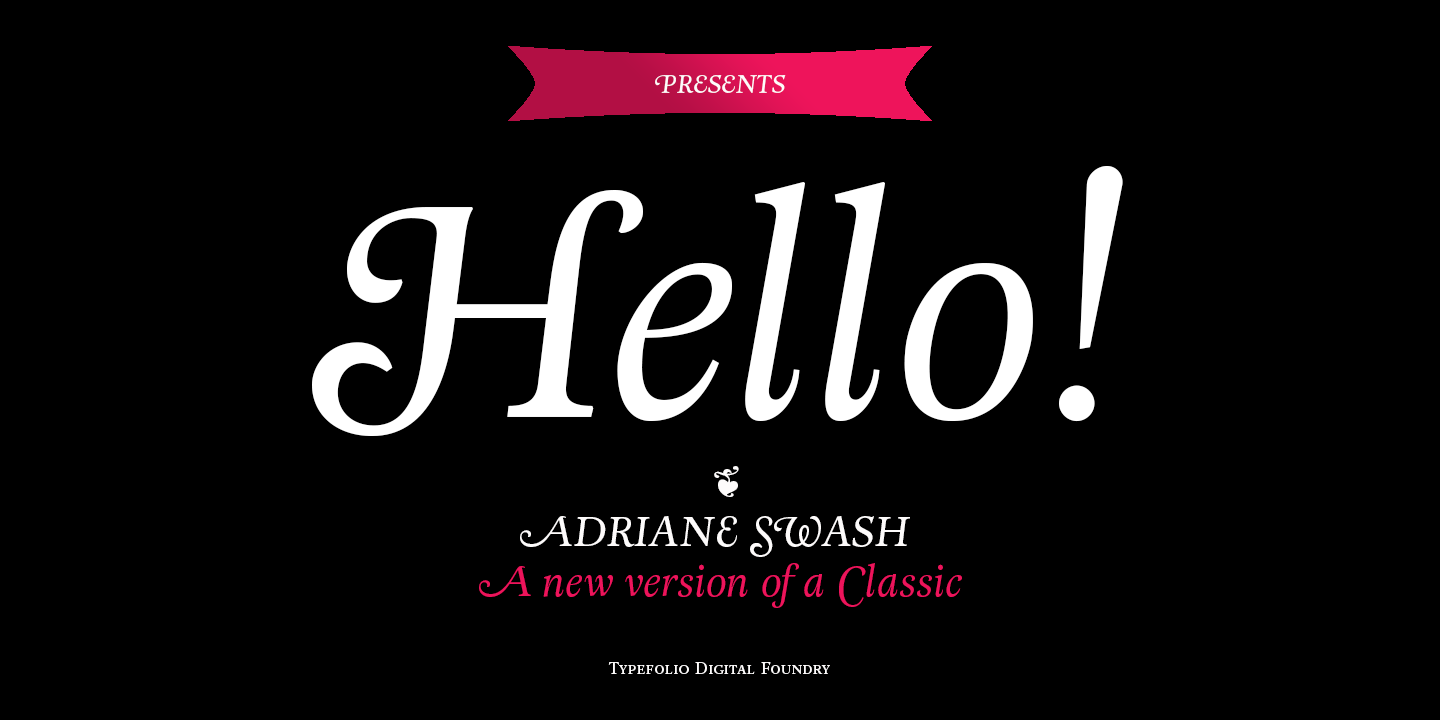
Please note that while you can download Adriane Swash Font for free for testing purposes, you are required to purchase a license for commercial use. This exquisite and decorative typeface is an unparalleled choice for projects that demand elegance, flair, and a touch of sophisticated charm. It's perfectly suited for luxurious wedding invitations, high-end branding, elegant product packaging, personalized greeting cards, refined editorial titles, and any design that benefits from an ornate, yet legible, visual flourish. Its flowing lines and graceful swashes truly elevate the aesthetic.
What makes Adriane Swash Font so exciting is its inherent ability to transform ordinary text into a work of art. The distinctive swash characters, which are decorative extensions or flourishes on letterforms, add an unparalleled level of sophistication and personality. This font exudes a sense of bespoke craftsmanship and timeless beauty, making your designs feel custom-made and incredibly special. It’s a typeface that doesn't just convey a message; it celebrates it, adding a layer of visual richness that captivates the viewer and leaves a lasting impression of elegance and bespoke quality.
The Adriane Swash Font family is typically designed to maximize its decorative potential. While a core Regular weight provides the foundation, you can often expect a rich array of stylistic alternates and ligatures that enable the iconic swash effects. Professional versions may include different levels of swash intensity, allowing for subtle or dramatic embellishments. This robust set of features ensures designers have ample tools to create unique, flowing compositions, perfect for when a touch of opulence and intricate detail is desired. Elevate your designs to a new level of artistry with Adriane Swash Font Free Download!